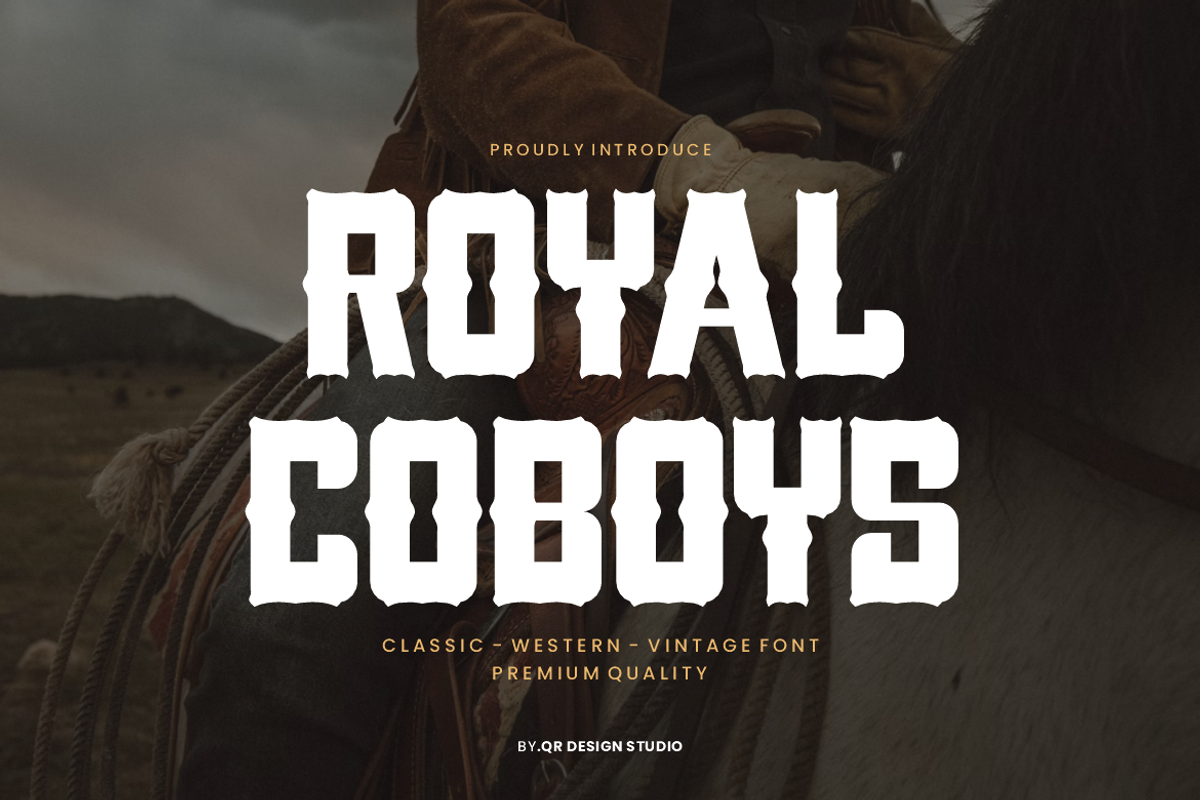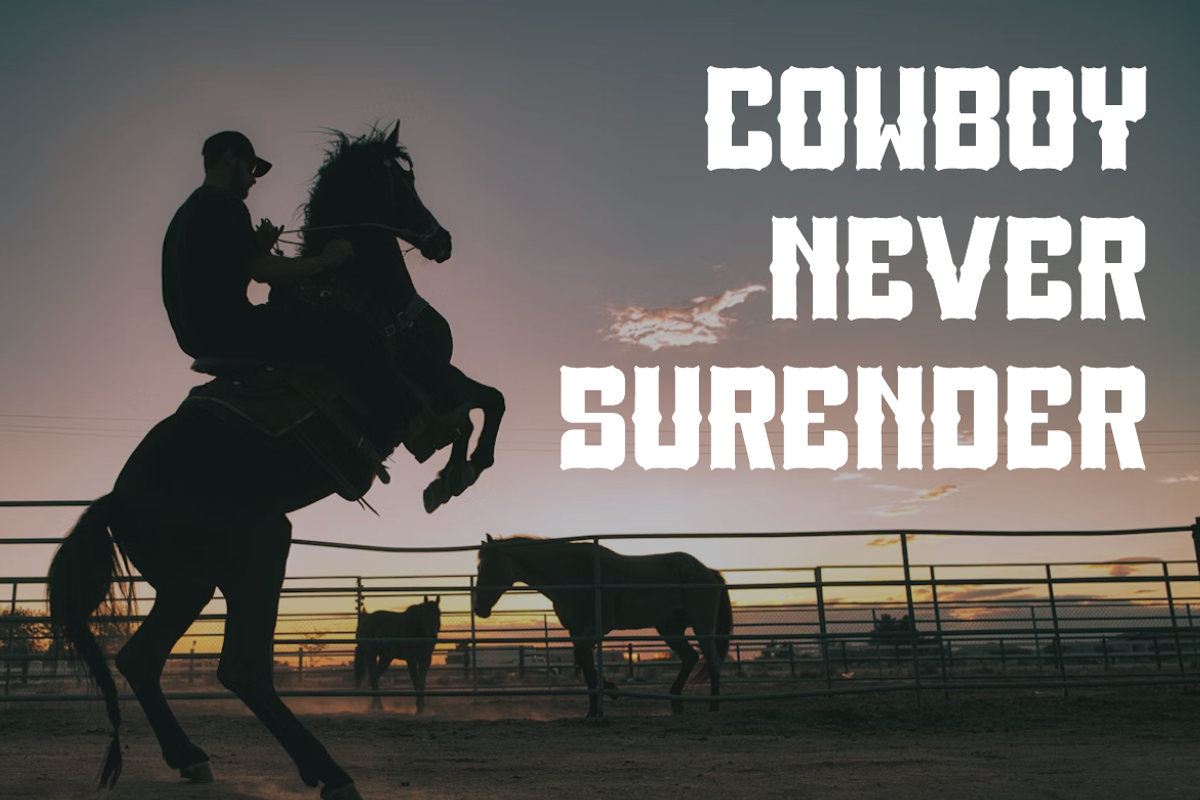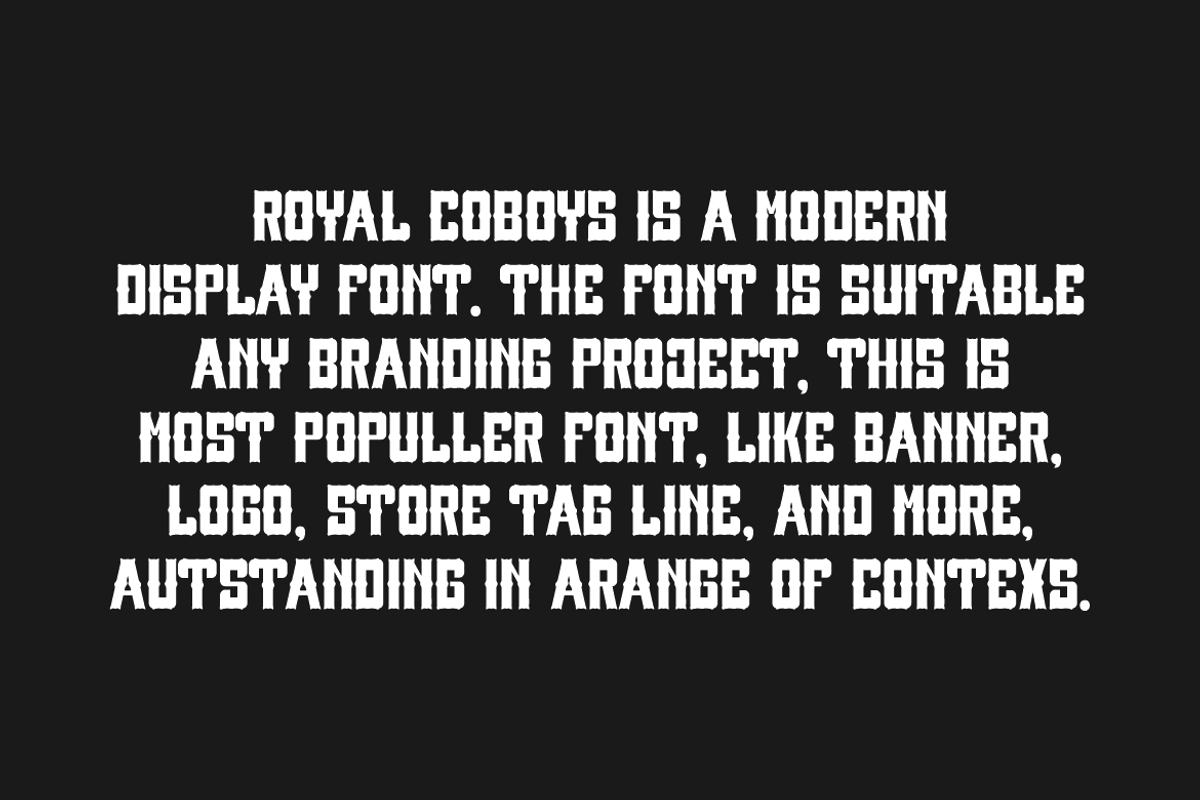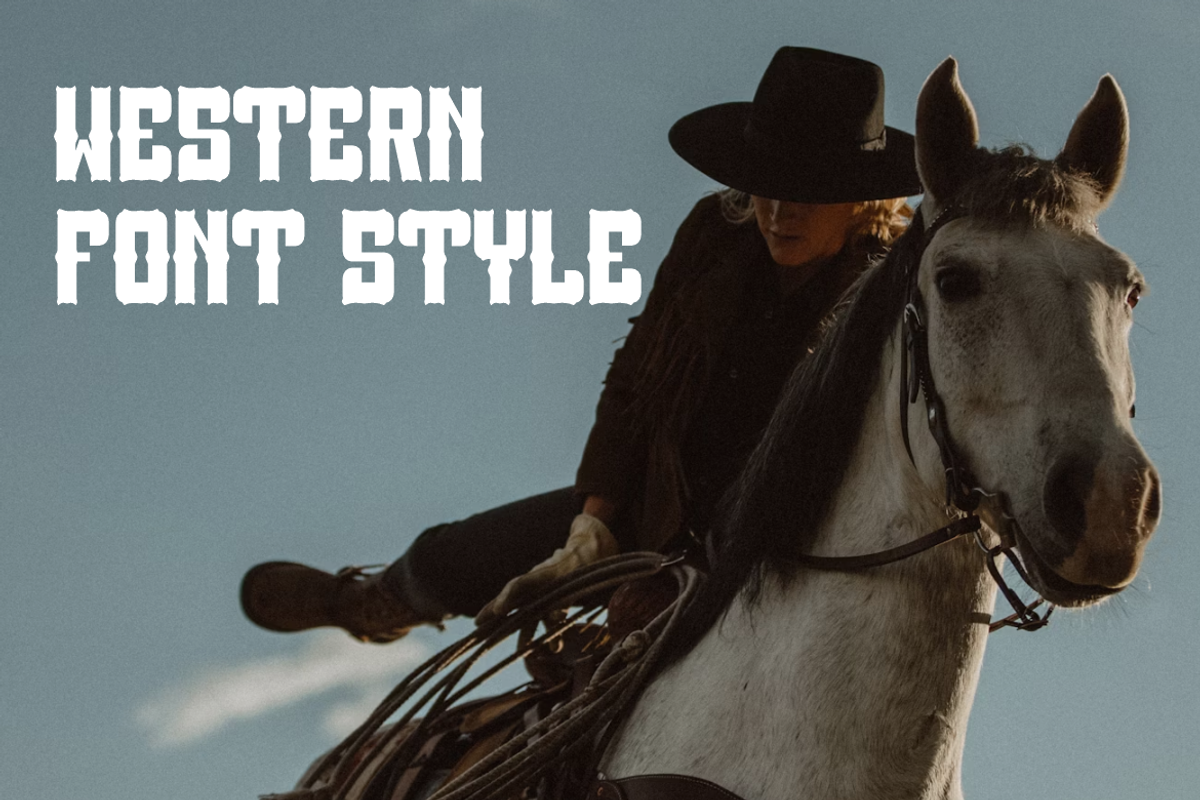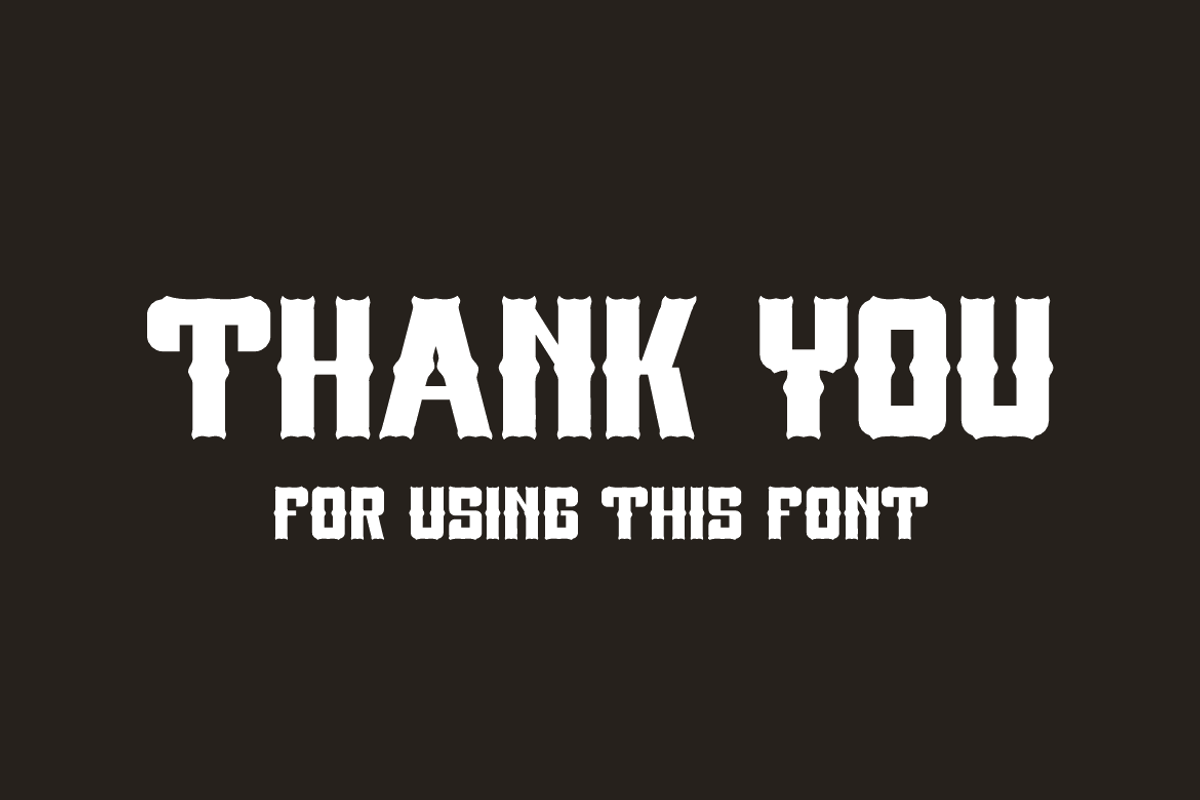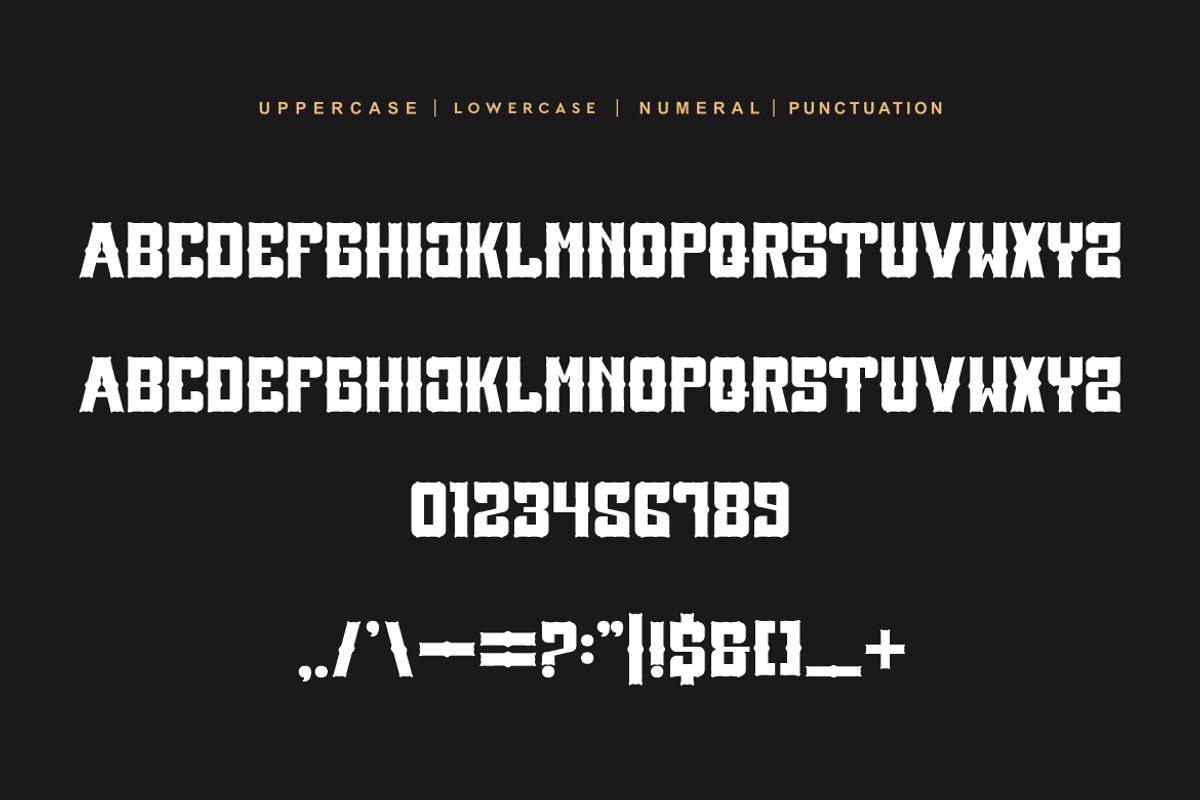
Royal Coboys - Western Font
Royal Coboys - Western Font is a bold and authentic display font. The font is suitable for any branding project like poster, logo, sport, and many more. Outstanding in a wide range of contexts.